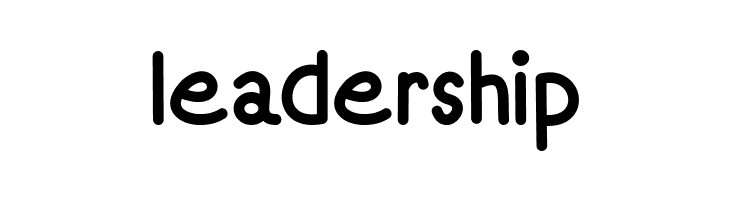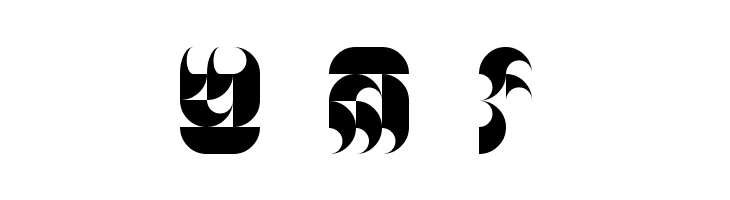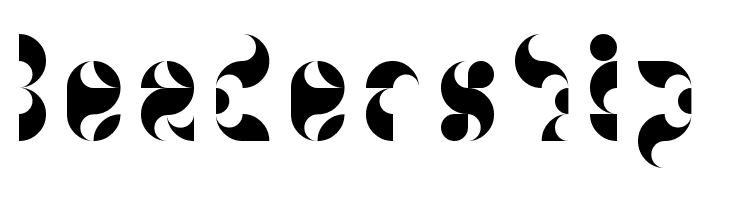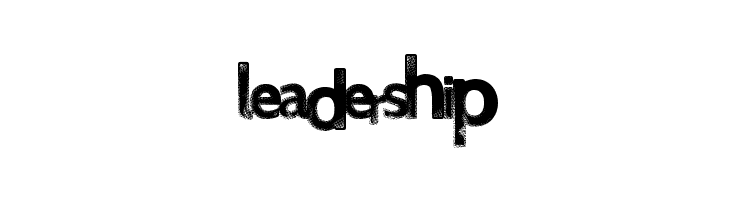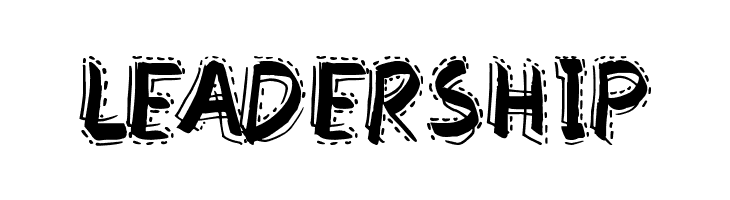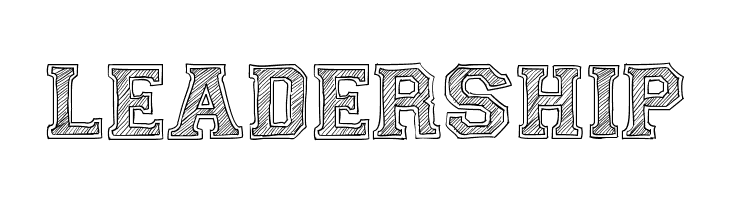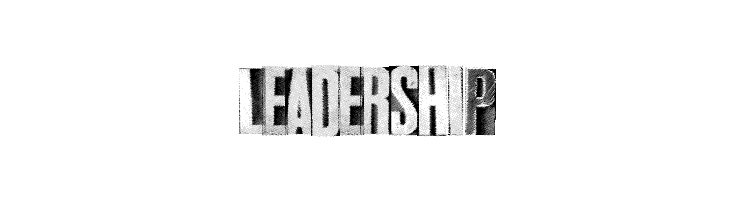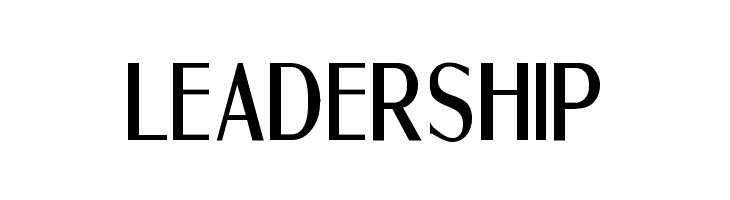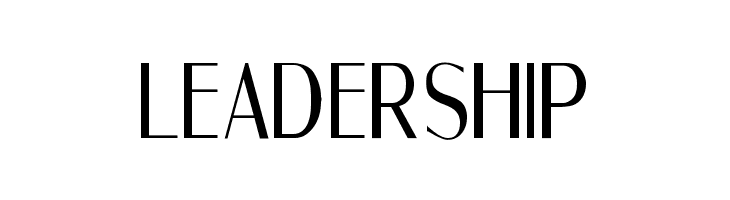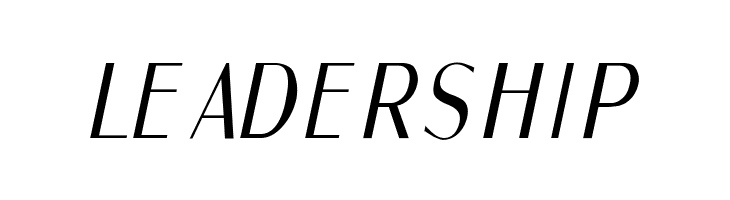
• Final Fantasy Regular
A pixelated, retro-style font with bold, blocky characters.
• FinalRelief
A bold, textured font with a gritty, vintage appearance.
• FinCompetition Regular
• Find a Way
A bold, playful font with a hand-drawn, outlined style.
• Find a Way
A bold, playful font with a hand-drawn, outlined style.
• Fine Again
• Fine Blackboard
A bold, decorative font with a vintage, textured style.
• Fine College
A bold, sketch-style decorative font with a collegiate feel.
• Fine Eroded
A bold, distressed font with an eroded texture for a rugged, vintage look.
• Fine Sans
A modern, clean sans-serif font with a sleek and professional appearance.
• Fine Sans Bold
A bold, modern sans-serif font with clean lines and balanced proportions.
• Fine Sans Italic
A sleek, italic sans-serif font with medium contrast and modern elegance.
• Fine Style
A classic serif font with high contrast and elegant serifs.
• Fineness Bold
A bold, modern sans-serif font with clean lines and uniform stroke weight.
• Fineness Light
A modern, light sans-serif font with low contrast and excellent readability.
• Fineness Pro Black
A bold, modern sans-serif font with a clean and professional look.
• Fineness Pro Black Cond
A bold, modern sans-serif font with a slightly condensed width and clean lines.
• Fineness Pro Black Italic
A bold, modern italic typeface with a dynamic and professional appearance.
• Fineness Pro Bold
A bold, modern sans-serif font with geometric precision and excellent readability.
• Fineness Pro Bold Cond
A bold, modern sans-serif font with excellent readability and uniform design.
• Fineness Pro Bold Italic
A sleek, bold, and italicized modern font with smooth strokes and dynamic slant.